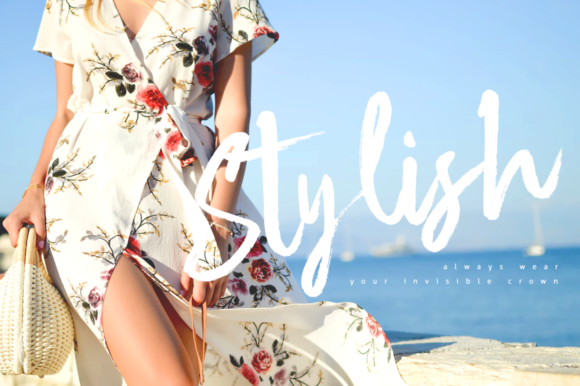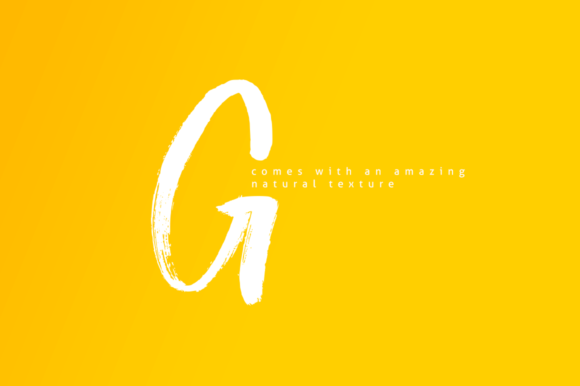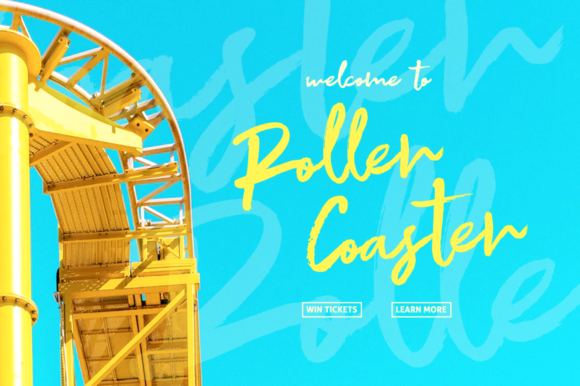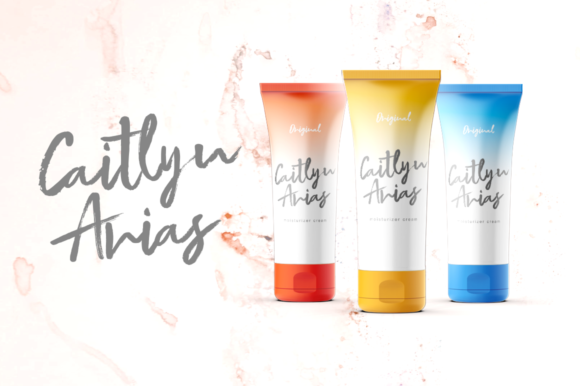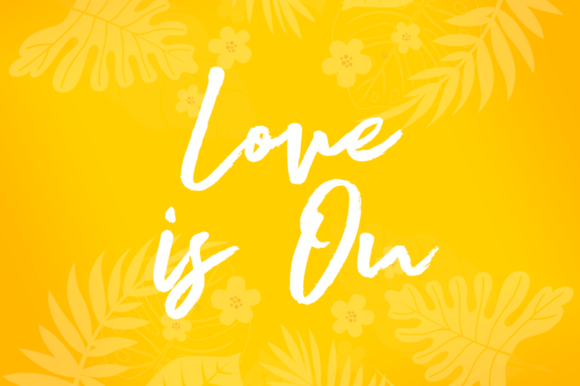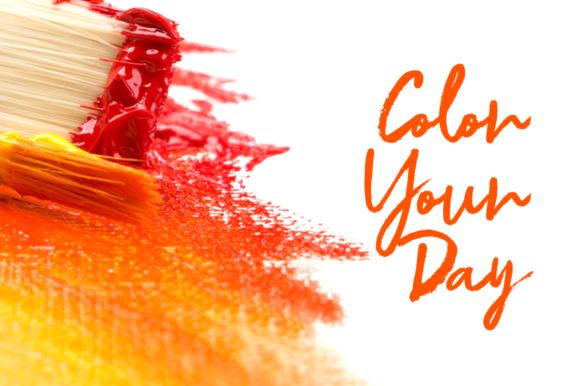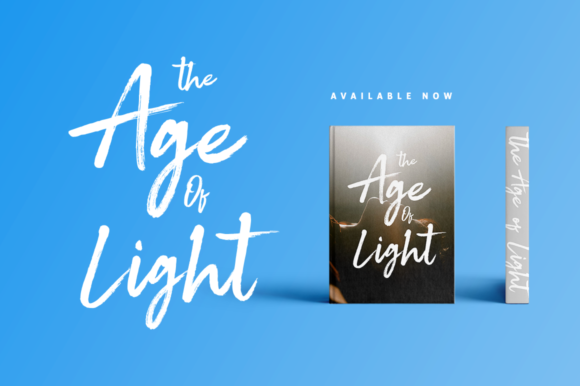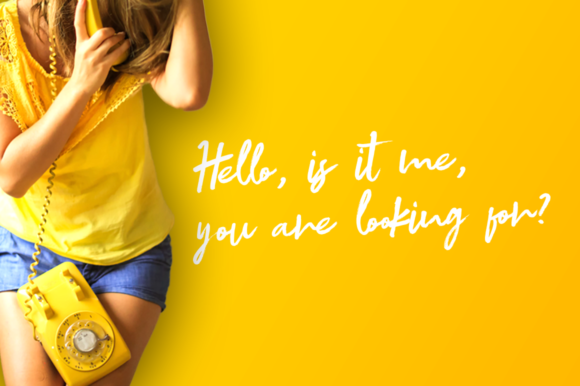
Grades Font
About Grades Font
Grades is a font with an amazing natural handwritten touch. Perfect for various design projects that need a touch of excitement!